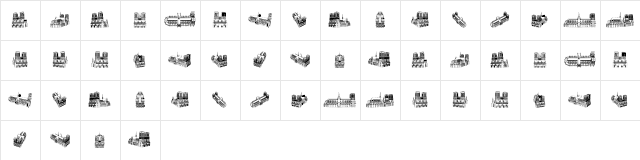
NotreDame de Paris Regular
Design Context for NotreDame de Paris Typeface
NotreDame de Paris is a composed and adaptable typeface that performs quietly and consistently across a wide range of design contexts.